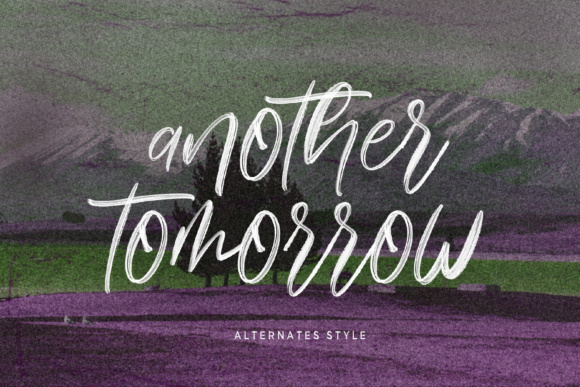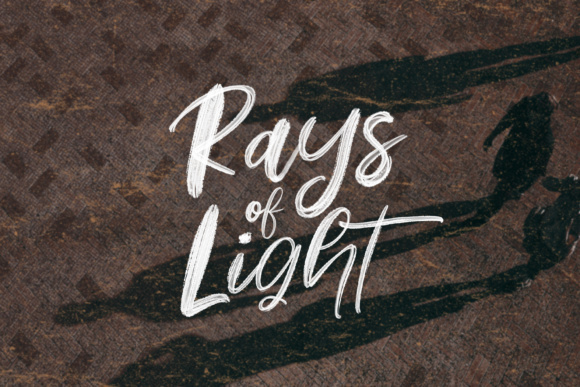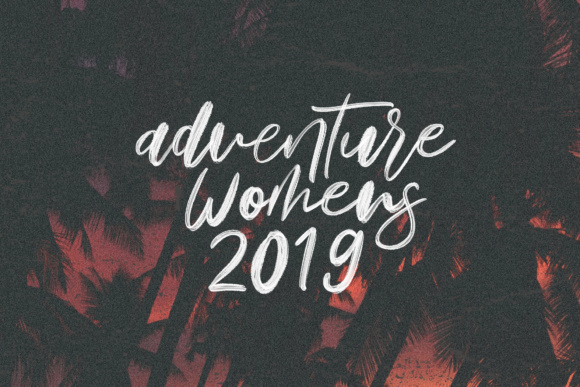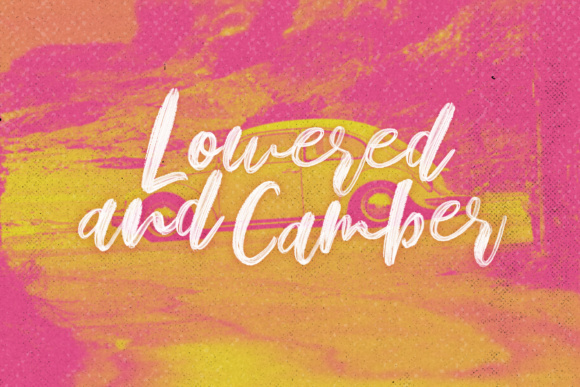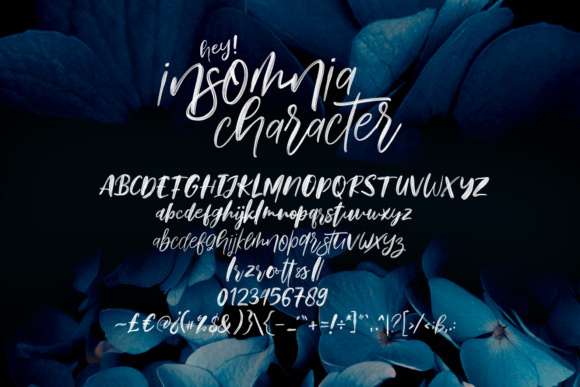
Hey Insomnia Font
About Hey Insomnia Font
The Hey Insomnia is a captivating font that features cool transparent textures, adding a unique and eye-catching element to your designs. With its distinct style, this font is perfect for creating bold and attention-grabbing typographic compositions.
The transparent textures in The Hey Insomnia font give it a contemporary and edgy look. The letters appear to have a sense of depth, as if they are made of glass or have a translucent quality. This adds visual interest and makes the font stand out, especially when used on contrasting backgrounds or layered with other elements.
The transparent textures in The Hey Insomnia font offer creative possibilities for various design projects. Whether you’re designing posters, album covers, social media graphics, or any other visual content, this font can enhance your compositions and make them visually striking.
When working with The Hey Insomnia font, consider experimenting with different colors and backgrounds to highlight the transparency effect. Play with layering and blending modes to create interesting visual combinations. The font’s bold and distinct letterforms make it ideal for titles, headlines, and statements that require emphasis and impact.
Additionally, The Hey Insomnia font can be used in both digital and print media. Its unique style can make your designs stand out on websites, social media posts, banners, flyers, and more. Just ensure that the transparent textures are preserved when exporting or printing the design.
Overall, The Hey Insomnia font offers a cool and contemporary look with its transparent textures. It’s a great choice for projects that require a bold and attention-grabbing typographic treatment. Use it to add a touch of uniqueness and visual interest to your designs.